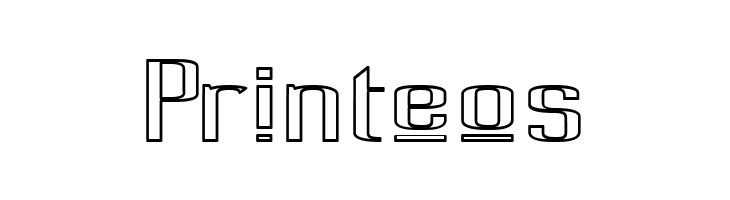
King Bird Font
- Font: King Bird
A geometric outline font with a modern and structured design.
A modern, geometric sans-serif font with expanded width and consistent line weight.